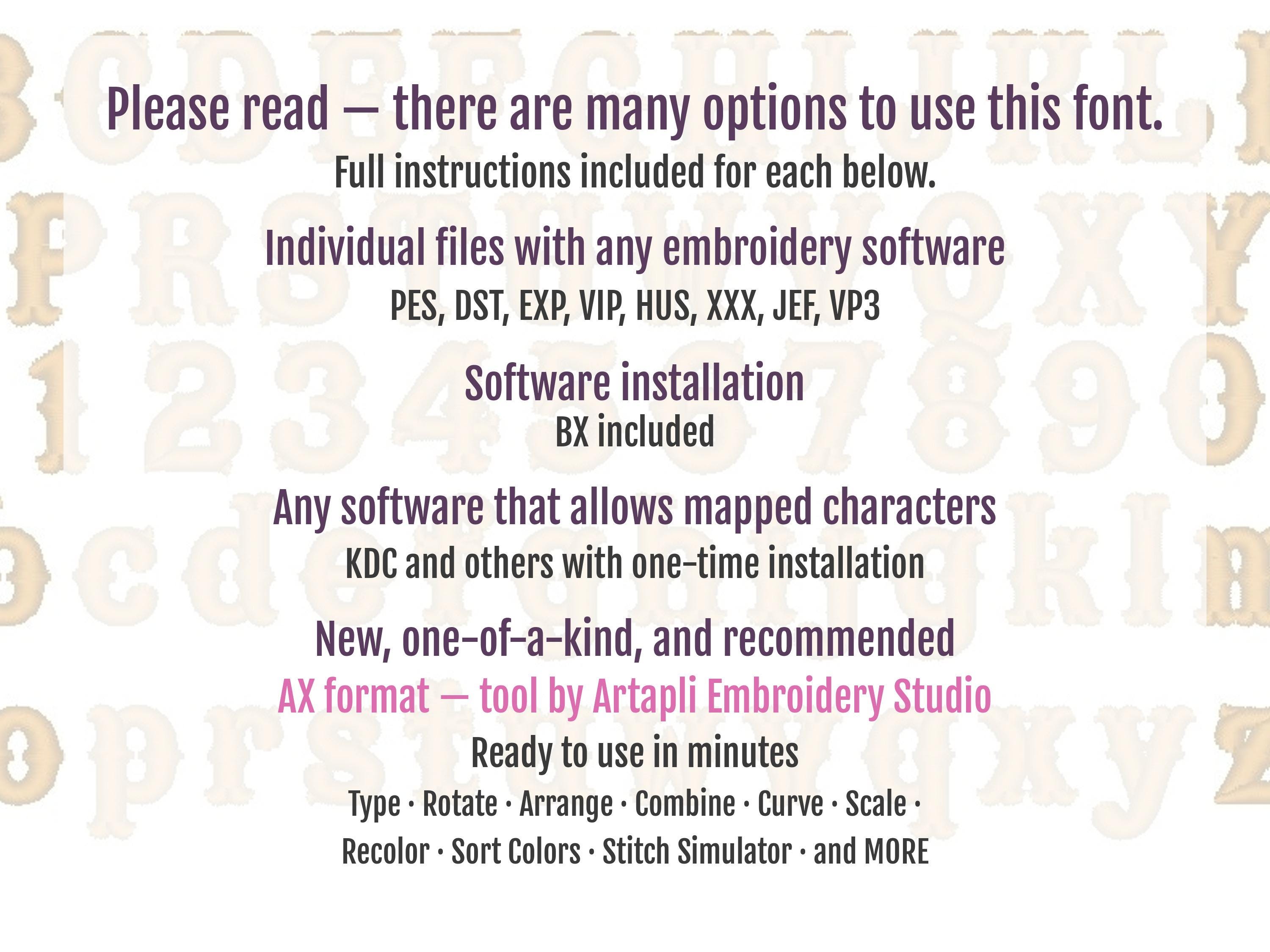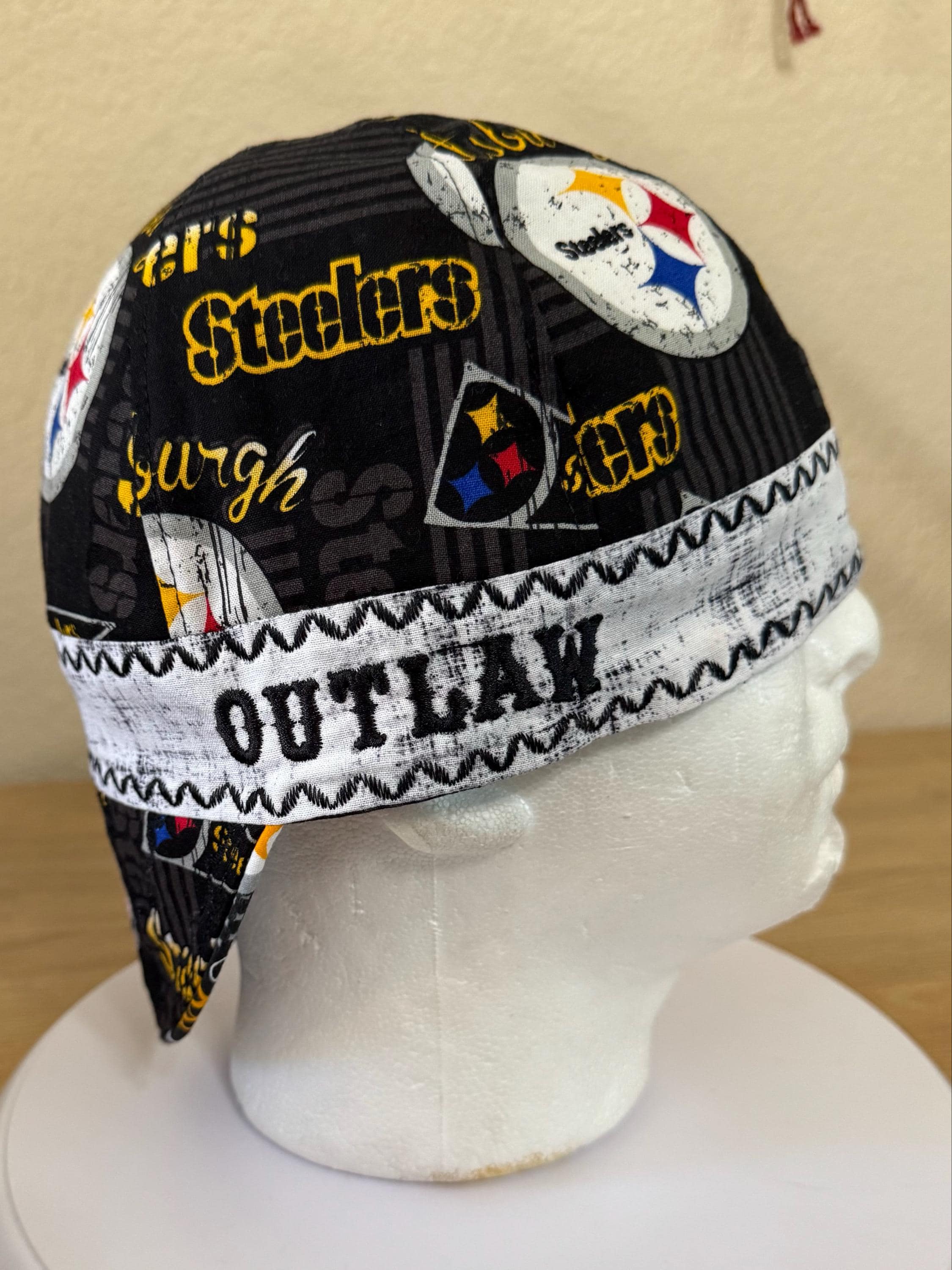
Big top Western Cute MINI Font machine embroidery designs, monogram initials alphabet and numbers in assorted sizes for girls and boys kids
Uppercase and lowercase letters, and numbers.
15mm - 0.6 inch
17mm - 0.7 inch
20mm - 0.8 inch
23mm - 0.9 inch
25mm - 1 inch
27mm - 1.1 inch
30mm - 1.2 inch